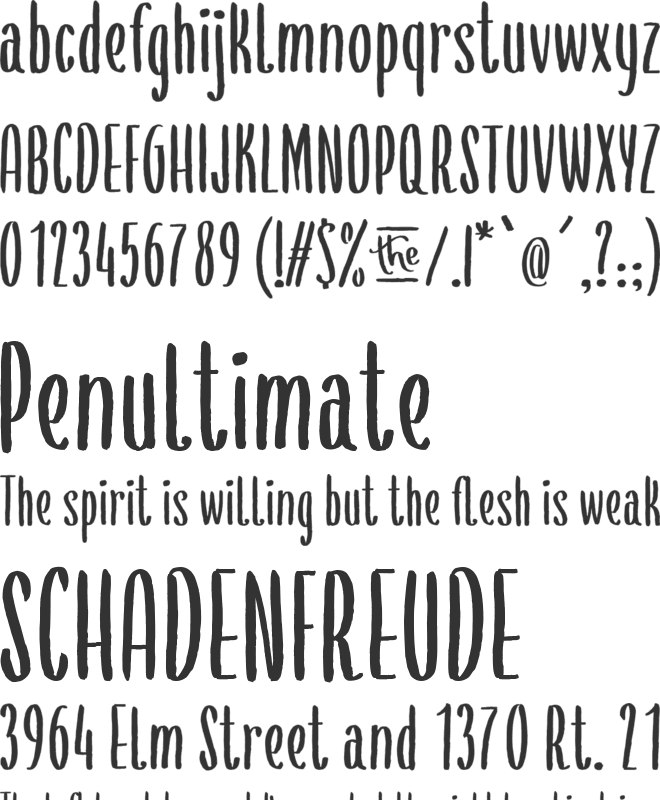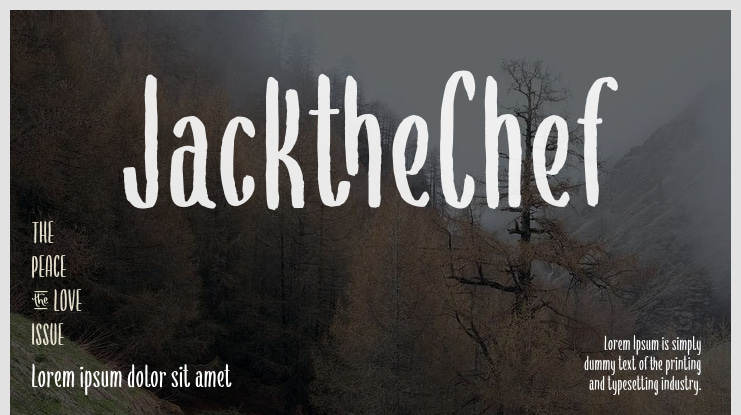
JacktheChef Font
“Jack the Chef” is a perfect fit if you’re working with limited spaces, which often requires a narrow font. This multipurpose typeface also offers two completely different moods depending on the usage of upper and lowercase. Type all CAPS to get a very bold headline font and use the lower case for smooth subheadlines or multiple lines of text.